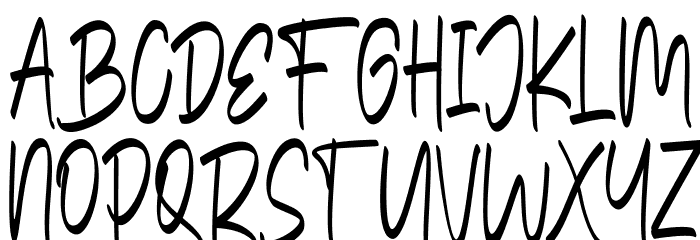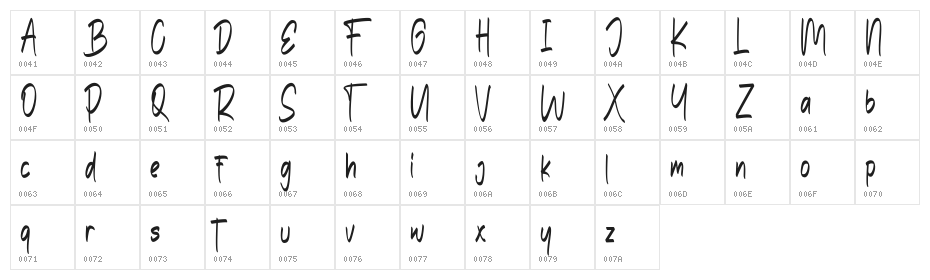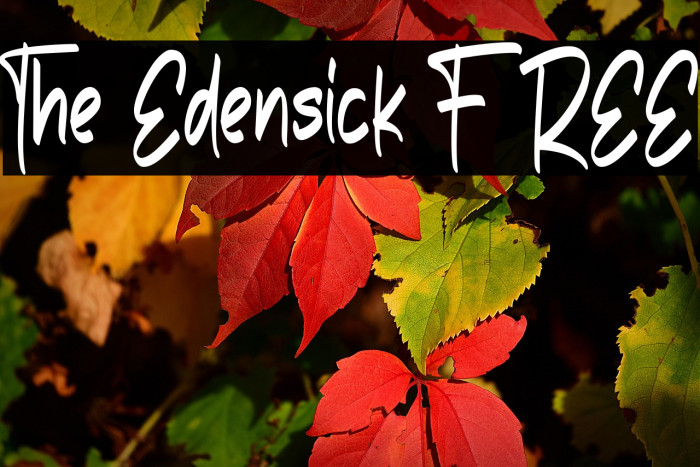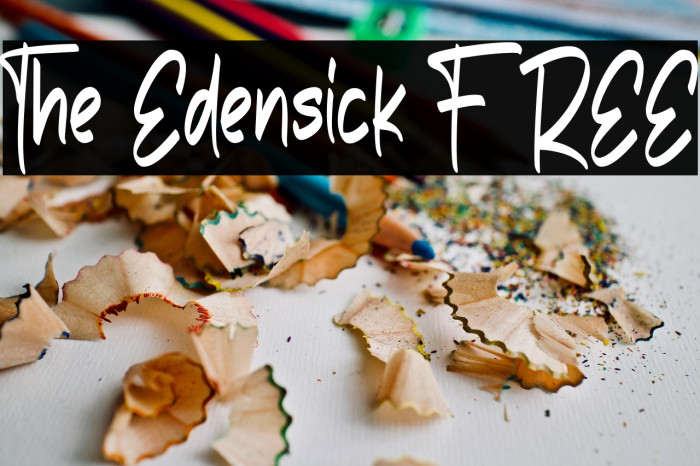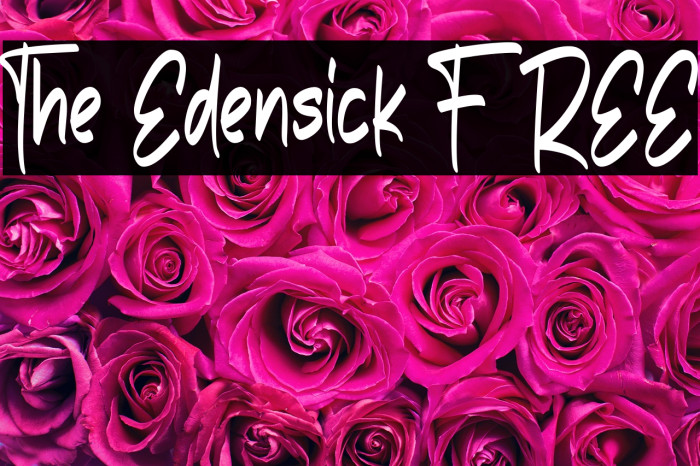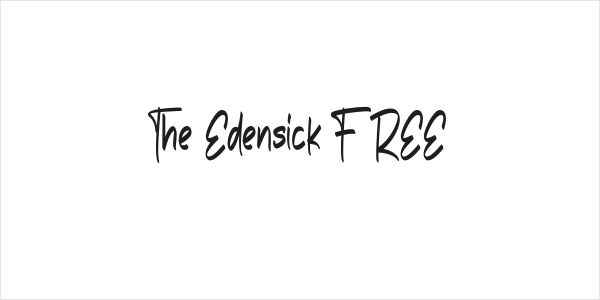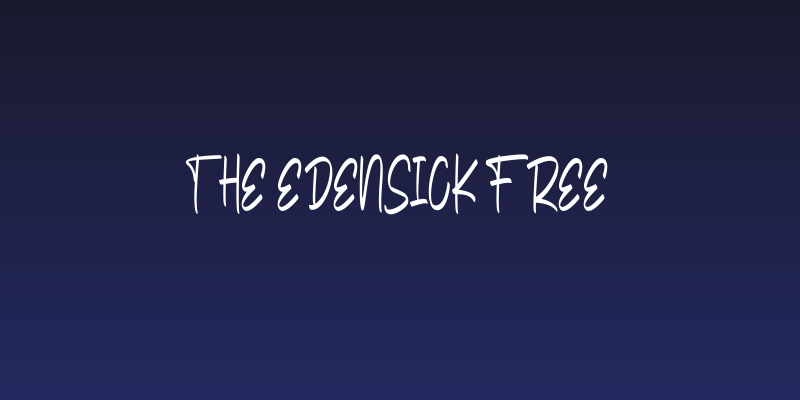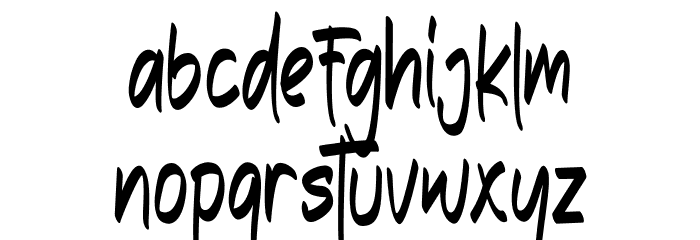
The Edensick FREE Font
The Edensick FREE Description
This font features a playful and energetic handwritten style, characterized by its tall, narrow letters and slightly irregular strokes. The uppercase and lowercase letters maintain a consistent flow, giving it a casual yet dynamic appearance. The strokes are moderately thick, contributing to a bold presence without overwhelming the design. The font's informal and friendly vibe makes it suitable for creative projects that aim to convey a sense of fun and approachability. Its unique character shapes and lively rhythm make it stand out, adding personality to any text.